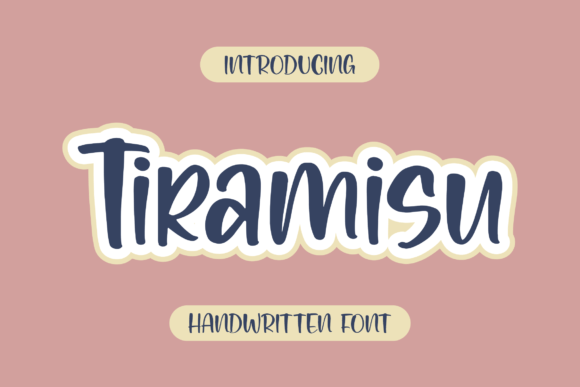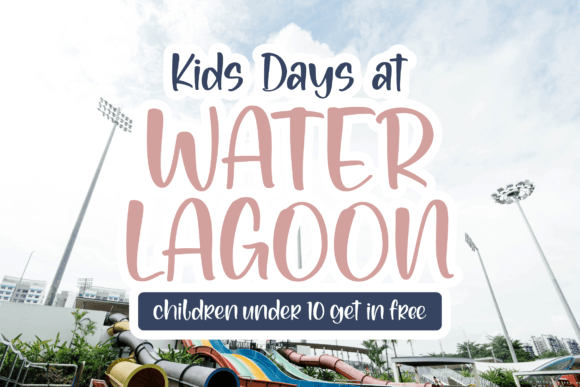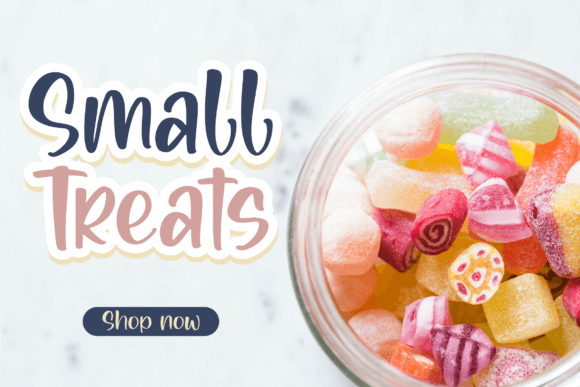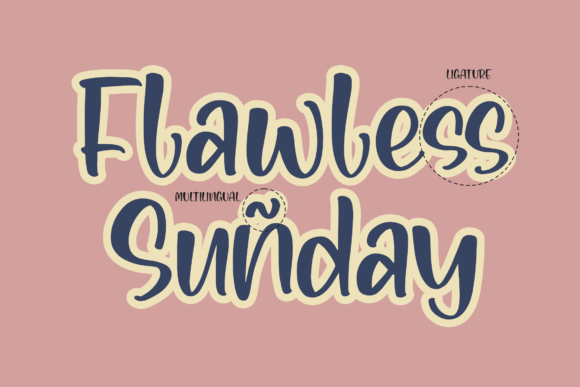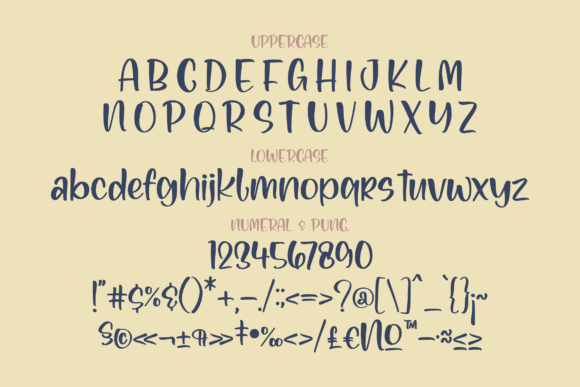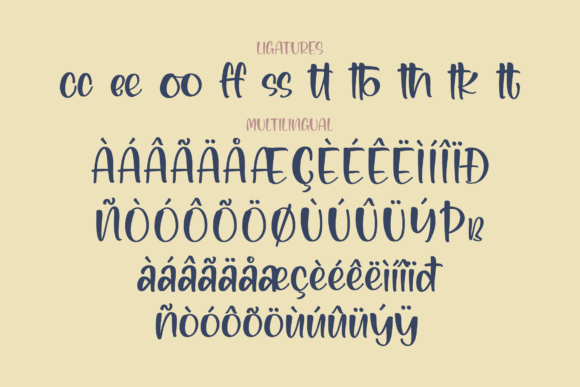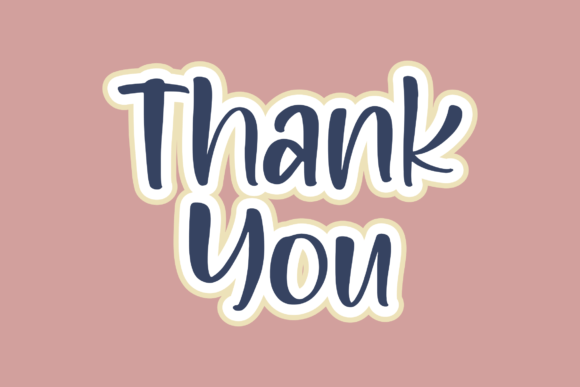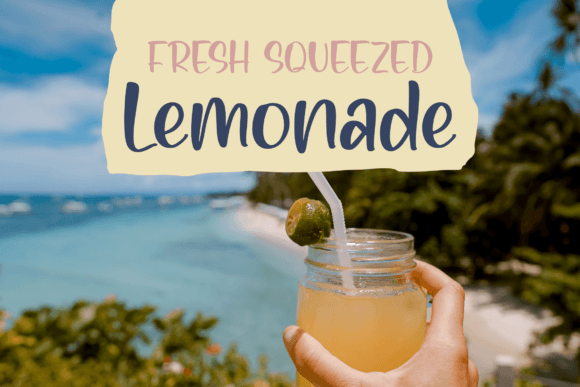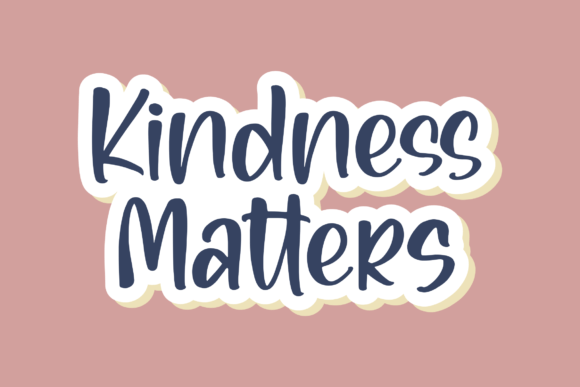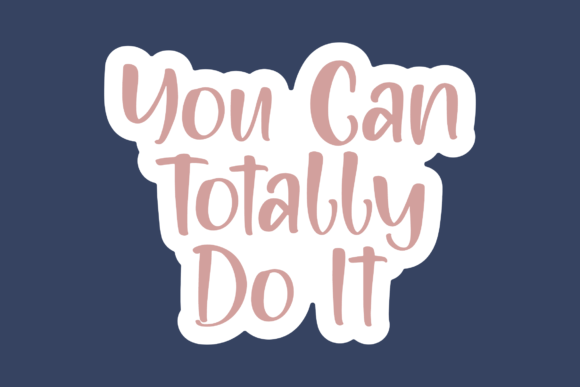
Tiramisu Font
About Tiramisu Font
Tiramisu is a captivating handwritten font that effortlessly adds a touch of elegance to a multitude of creative projects. Its distinctive charm makes it a versatile choice for a wide range of applications, from logos and branding projects to homeware designs, product packaging, mugs, quotes, posters, shopping bags, t-shirts, book covers, name cards, invitation cards, greeting cards, labels, photography, watermarks, special events, and more. This beautiful script font brings a unique and tasteful quality to all your lovely projects, enhancing them with a graceful and handwritten aesthetic.
Imagine Tiramisu gracing your logo, infusing it with a sophisticated yet approachable feel that captures the essence of your brand. Picture homeware designs adorned with the font, transforming everyday items into stylish and chic pieces. Product packaging takes on a new level of allure with Tiramisu, standing out on the shelves and creating a lasting impression.
Mugs featuring Tiramisu become not just vessels for beverages but also personalized pieces of art. Quotes gain a poetic and expressive quality, posters become visually striking works of art, and shopping bags turn into fashionable accessories with the addition of this beautiful script font. T-shirts adorned with Tiramisu boast a trendy and artistic vibe, while book covers acquire an inviting allure that beckons readers.
The font lends an air of sophistication to name cards, making introductions memorable, and invitation cards become keepsakes with Tiramisu’s elegant touch. Greeting cards convey heartfelt messages with a touch of grace, and labels on your products exude a refined and professional quality. Tiramisu enhances your photography, adding a subtle and stylish watermark that complements your visual storytelling.
Special events, from weddings to corporate gatherings, are elevated with Tiramisu gracing invitations and event materials. In essence, Tiramisu is more than just a font; it’s a versatile tool that transforms your projects into expressions of beauty and sophistication. Let Tiramisu be the script that weaves elegance into all your creative endeavors, making them truly unforgettable.